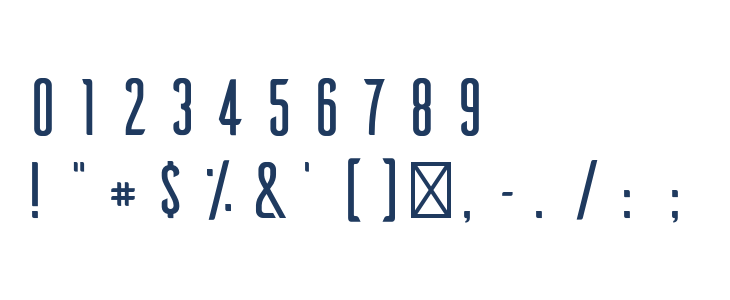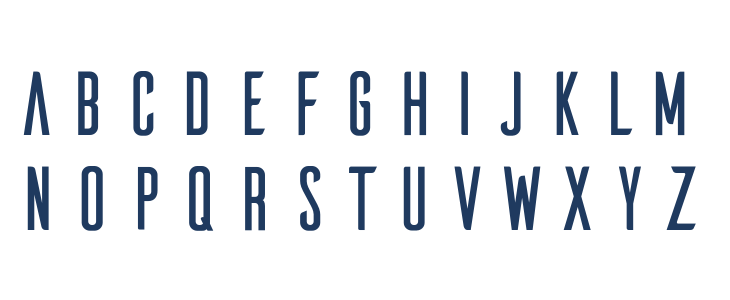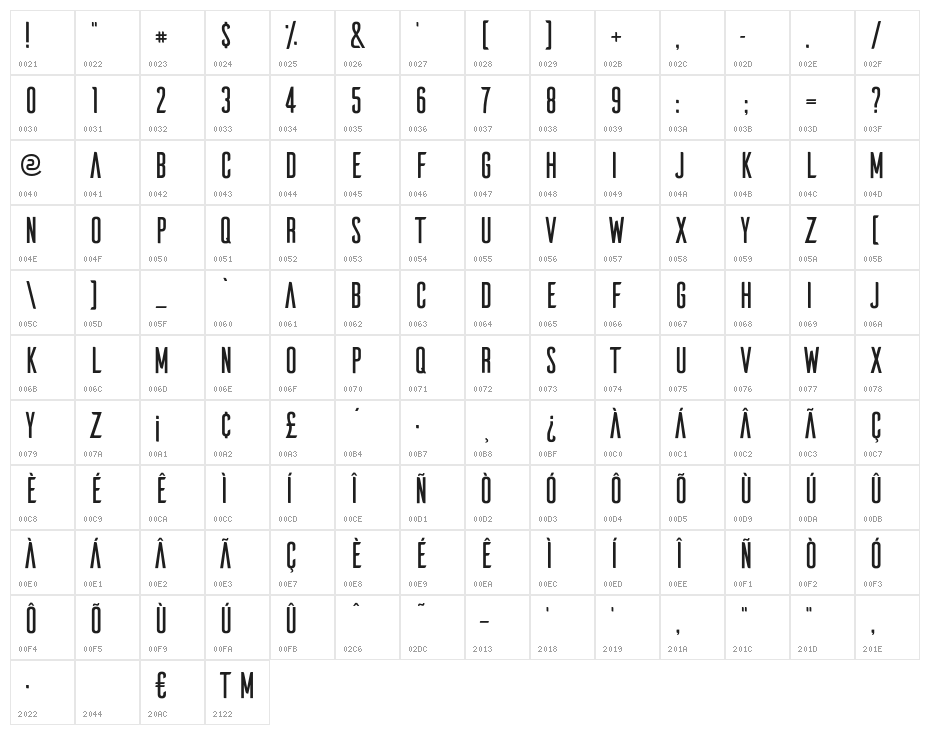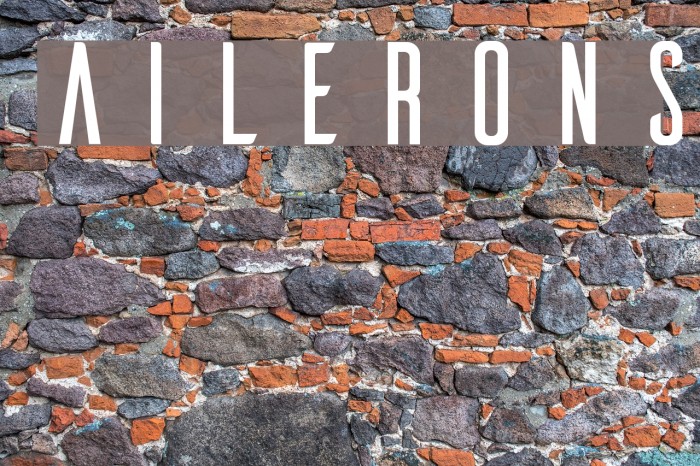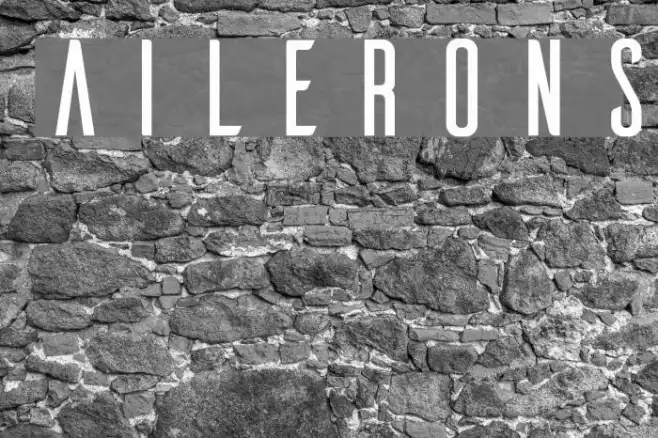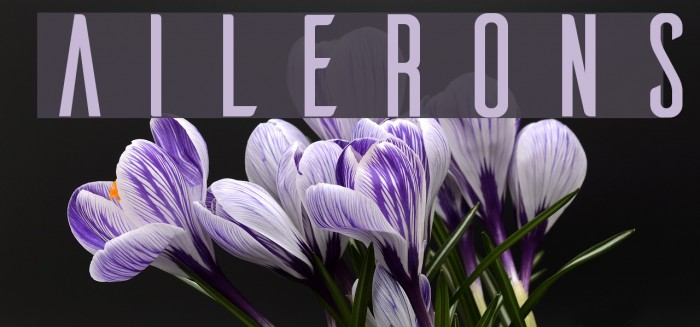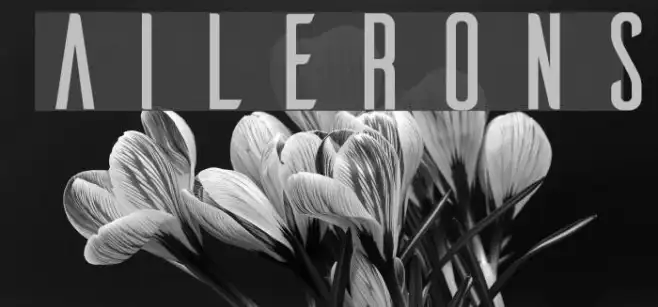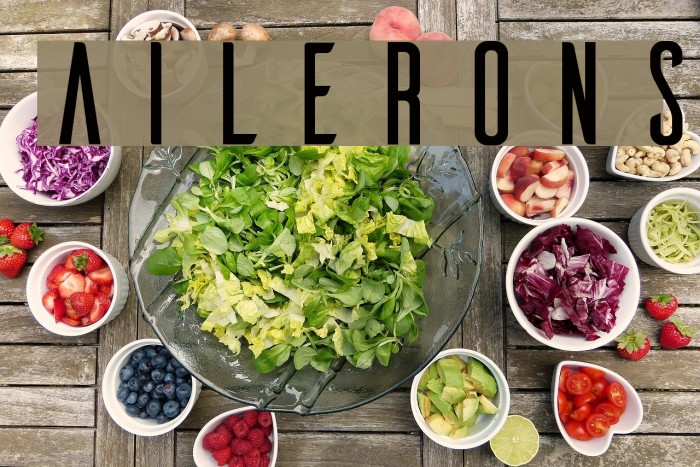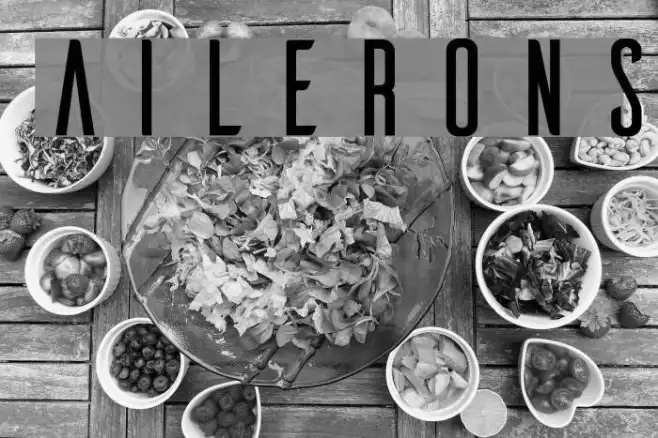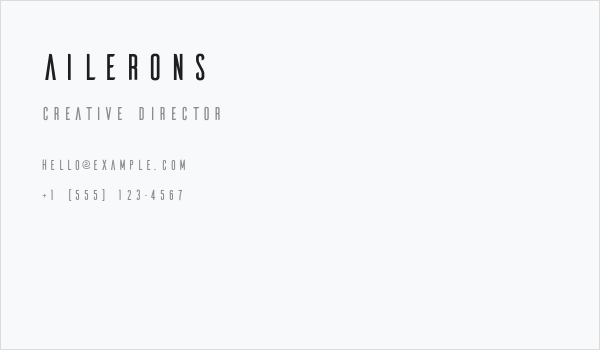
Ailerons Font
Ailerons Description
This font features a sleek, modern design with a geometric structure that emphasizes verticality. The characters are tall and narrow, giving it a condensed appearance. The strokes are consistent in width, contributing to a clean and streamlined look. The uppercase letters are particularly striking, with sharp angles and a futuristic feel. The lowercase letters maintain the same aesthetic, ensuring uniformity across the typeface. Numbers and special characters are designed to match the overall style, making it versatile for various applications.
| Proposed Projects | Ideal for branding, posters, and editorial design where a contemporary and stylish look is desired. |